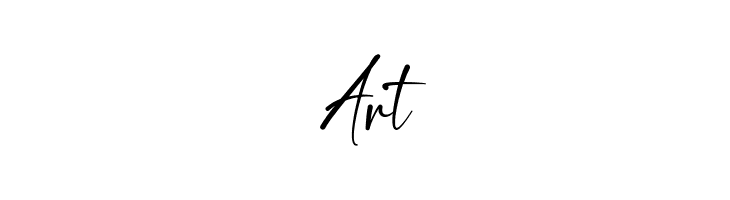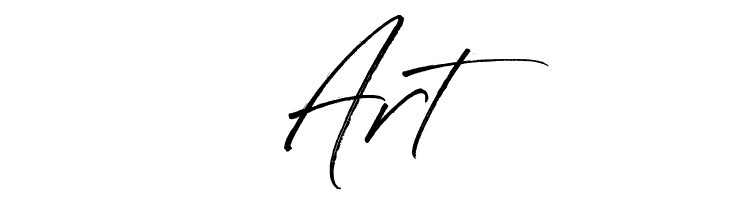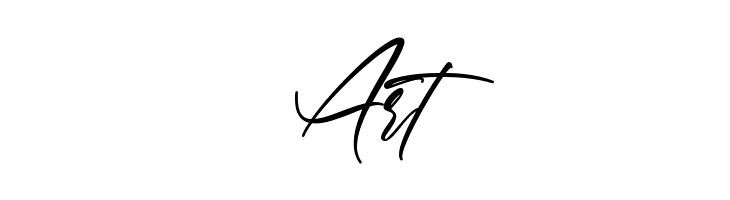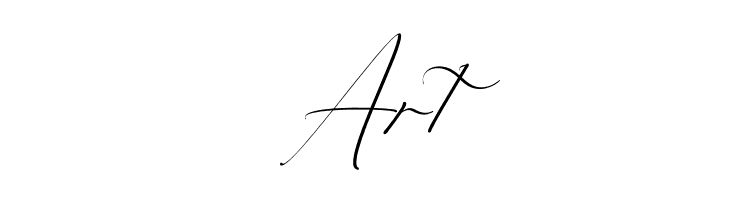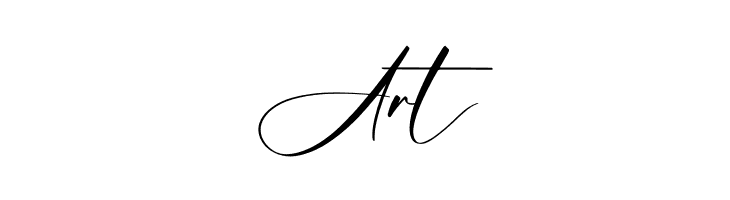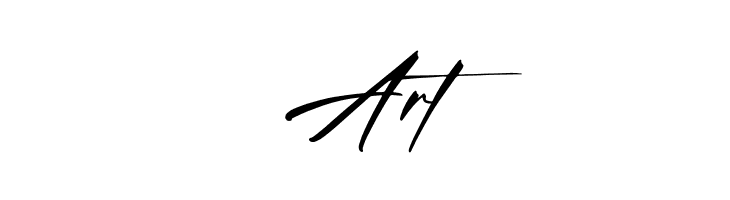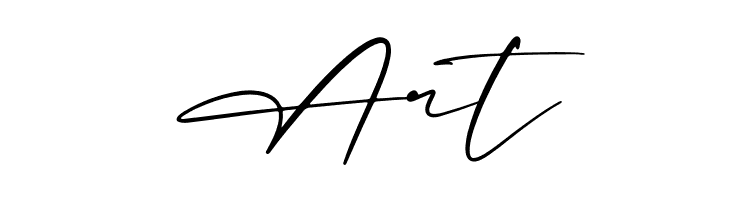
A dynamic, cursive script font with bold, sweeping strokes and elegant flourishes.
A flowing, cursive font with elegant, sweeping lines and a handwritten appearance.
A flowing, cursive font with elegant, sweeping curves and a sophisticated style.
A dynamic, expressive handwritten font with fluid, sweeping strokes.
A lively and expressive script font with bold, sweeping curves and playful flourishes.
A dynamic cursive script with sweeping, connected strokes.
An elegant and flowing script font with sophisticated, sweeping curves.
An elegant, cursive font with sweeping curves and stylish flourishes.
A dynamic and expressive script font with fluid, sweeping strokes.
A fluid, cursive font with elegant, sweeping strokes and a handwritten feel.